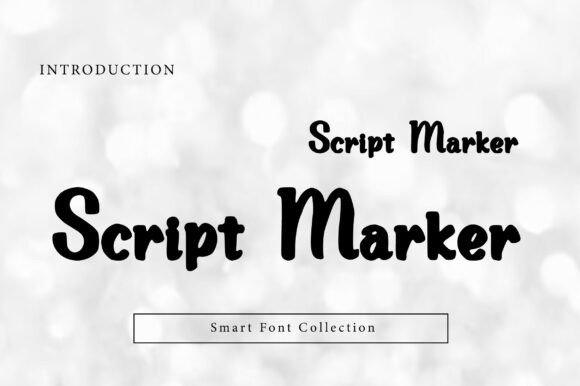
Script Marker: A Handwritten Font for Web Design
I was stuck on the hero section of a boutique coaching website. The client wanted something that felt approachable, warm, and distinctly human, but every clean sans serif font I tried felt too corporate. That’s when I pulled up Script Marker. Within minutes, the mood of the entire landing page shifted. The flowing strokes and casual rhythm of this typeface didn’t just sit on the screen; they invited the user in. It reminded me why we choose specific Fonts not just for legibility, but for emotional resonance.
As a web designer who builds digital experiences for small businesses and creative entrepreneurs, I’ve tested hundreds of display fonts. Script Marker stands out as a premium option that bridges the gap between authentic marker lettering and modern typography. It is part of the Script Amp collection, designed to bring that natural, expressive energy into digital interfaces without sacrificing structure. Here is my practical review of how it performs in real-world layouts, from mobile responsive designs to high-converting landing pages.
The Visual Personality of Script Marker
Script Marker is, at its core, an expressive handwritten script font. It mimics the fluidity of a felt-tip marker gliding across paper, capturing the slight variations in stroke width that make handwriting feel genuine. Unlike rigid calligraphy, this typeface has a friendly, unpretentious vibe. When I applied it to a logo mockup for a wellness brand, it immediately communicated "care" and "personal attention."
In the realm of web design, visual hierarchy is everything. This font excels as a display font. Its character is strong enough to grab attention in a hero banner or a large headline, yet the curves are smooth enough to avoid looking chaotic. It brings a sense of movement to static text. For brands trying to establish a unique brand identity that feels less like a corporation and more like a community, Script Marker offers a distinct voice. It works particularly well for creative portfolios, lifestyle blogs, and boutique online stores where the human element is the selling point.
Performance in Real Web Layouts
Testing a font on a desktop is one thing; seeing how it behaves on a 4-inch mobile screen is another. I integrated Script Marker into a responsive layout for a course sales page. On the desktop view, used as a massive H1 over a soft background image, it looked stunning. The organic lines added texture to what could have been a flat design.
However, responsiveness is key. When I checked the mobile breakpoint, I adjusted the font size slightly. Because Script Marker has tall ascenders and deep descenders, it requires adequate line height and vertical spacing to breathe. On smaller screens, I found it best suited for short headlines or pull quotes rather than dense blocks of text. In a recent project for a wedding planner, I used it for the main navigation link "Our Story" and the primary CTA button text. The result was a cohesive look that guided the user’s eye naturally through the page.
It also shines in editorial design contexts within web pages. Imagine a blog post about handmade crafts; using Script Marker for subheadings creates a delightful contrast against a standard body font. It breaks up the monotony of reading long articles and keeps the user engaged with visual variety.
Readability and Accessibility Considerations
While Script Marker is beautiful, it is not a universal solution. As a UI designer, I must always balance aesthetics with accessibility. This is a decorative script font, which means it should never be used for body copy, paragraphs, or long-form content. The connecting strokes and variable widths can become difficult to decipher if the text is too small or the screen resolution is low.
Avoid using it for:
- Small navigation menus (unless the font size is significantly increased).
- Form labels or input placeholders where clarity is critical.
- Technical instructions or legal disclaimers.
- Dense dashboard layouts where data needs to be scanned quickly.
For optimal readability, ensure there is high contrast between the text and the background. While it looks artistic on a dark overlay, you must check the contrast ratio to meet WCAG guidelines. If the background is busy, consider adding a subtle drop shadow or a semi-transparent backing behind the text to ensure the strokes remain visible. Always test your design on different devices before launch to confirm the handwritten font renders clearly on all operating systems.
Strategic Font Pairing for Digital Brands
The magic of Script Marker truly unlocks when you pair it correctly. Because it is so expressive, it needs a partner that provides stability. My go-to strategy is pairing it with a clean, geometric sans serif font for body text. This combination creates a perfect balance: the script adds personality and warmth, while the sans serif ensures the information is digestible and professional.
For example, in a recent landing page design for a yoga instructor, I paired Script Marker headings with a neutral sans serif for the class descriptions. The result was a site that felt both spiritual and organized. Alternatively, for a more editorial or sophisticated look, try pairing it with a classic serif font. This elevates the design, making it suitable for luxury boutiques or high-end consulting firms.
By using it strategically—reserving it for headlines, logos, and accents—you can create a website that feels inviting and memorable. Just remember to respect its limitations regarding size and density. When balanced with the right pairing and technical care, Script Marker becomes the signature touch that transforms a good website into a great digital experience. It proves that even in code and pixels, the warmth of a handwritten note can still shine through.